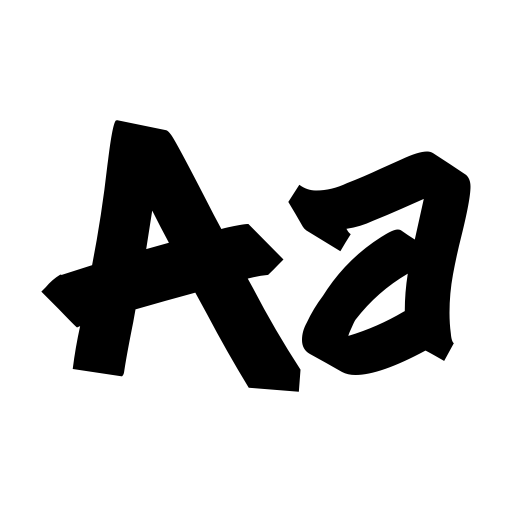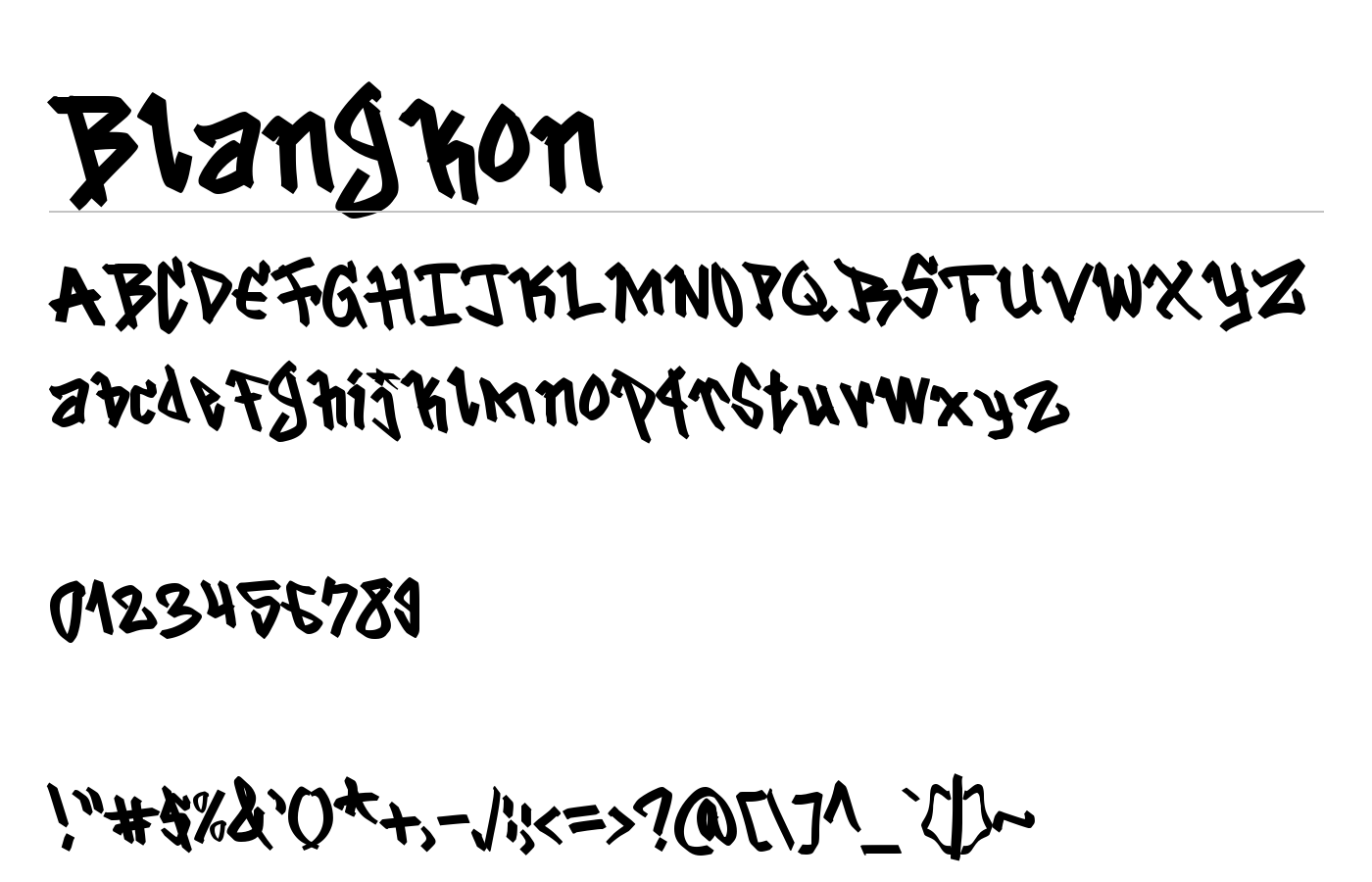
Blangkon is a bold and playful handwritten font with a unique, slightly rough texture that gives it a casual and energetic feel. Its uneven strokes and quirky character shapes make it perfect for creative, informal projects that want to capture attention with a distinctive, dynamic style. This font works well for eye-catching headlines, posters, and branding that seek a fun and artistic vibe.
Blangkon Font
About Blangkon Font
| Font family | Blangkon Font |
| Designer | Ahmad Afandi |
| Trademark | Letterafa |